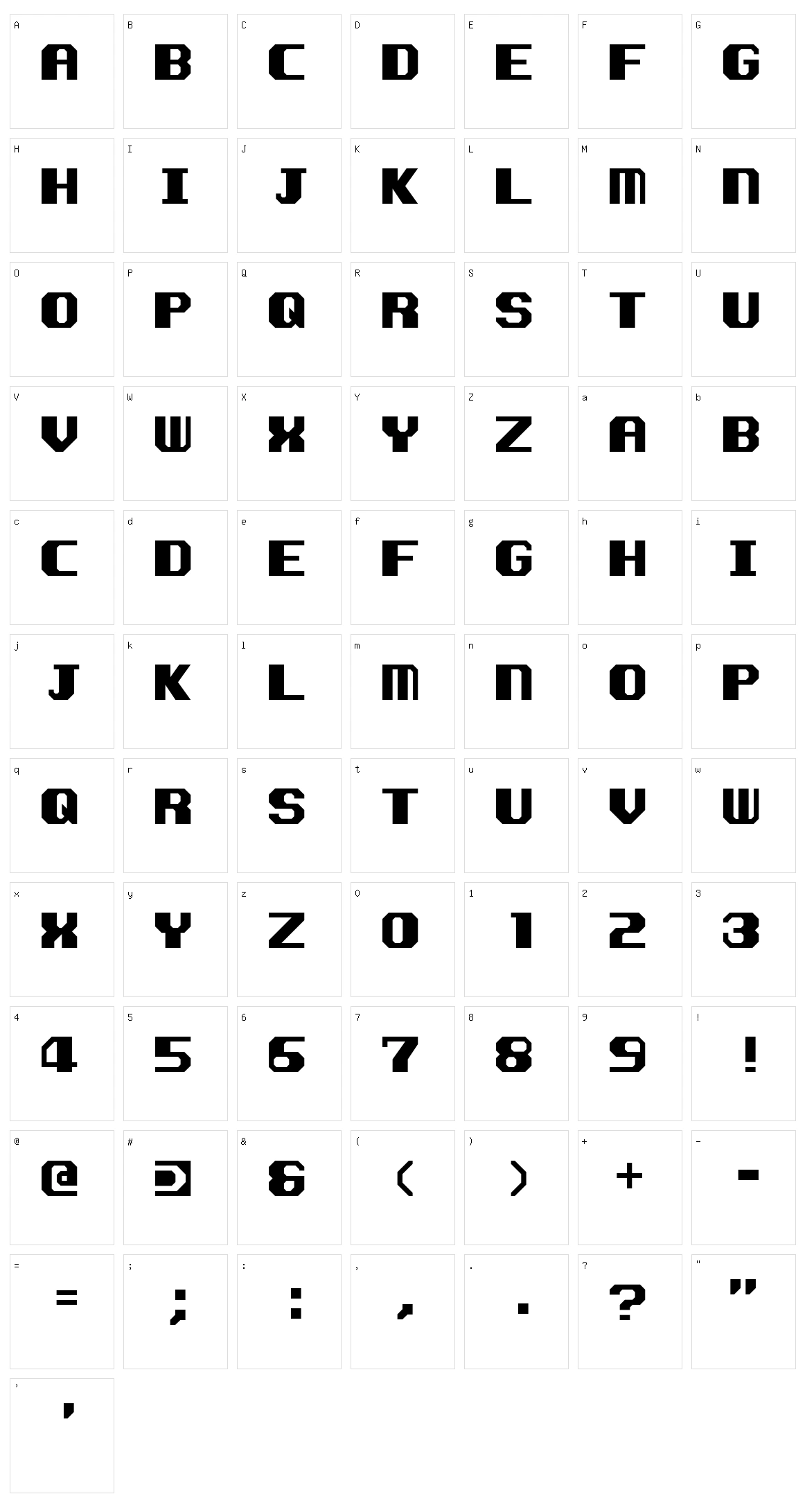
The free font Kemco Smooth is carefully designed by Jayvee Enaguas, showcasing a thoughtful balance of creativity and usability and falls under the Square font style. When you download the ZIP file, it contains only 4.89 KB of font files, making it lightweight and quick to download. Please review the license details below to understand permitted usage and distribution rights. If license information is not available, we recommend using this font for personal projects only or contacting the author directly for commercial usage permissions.